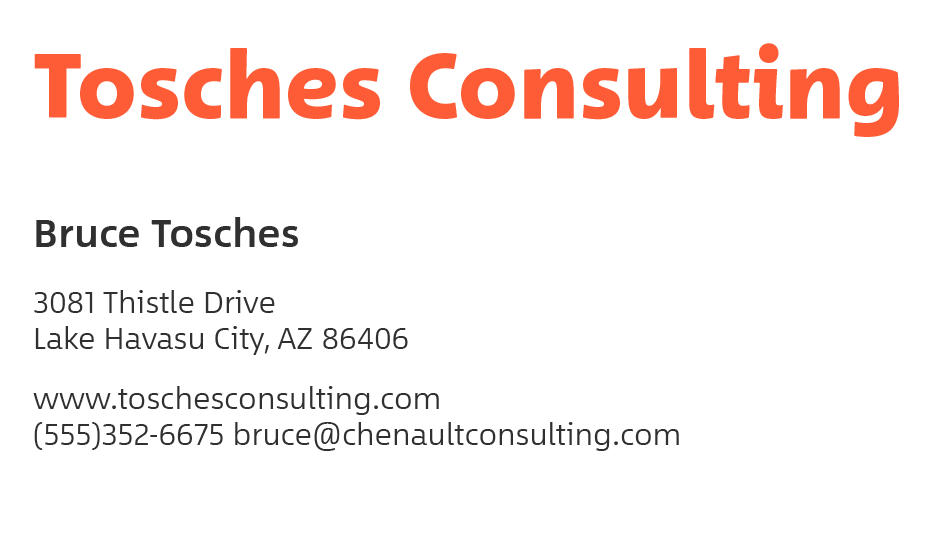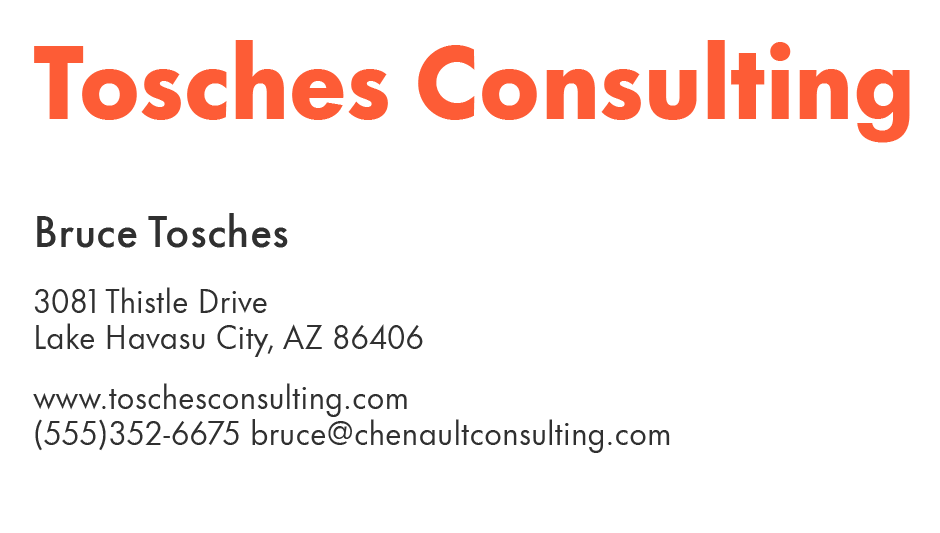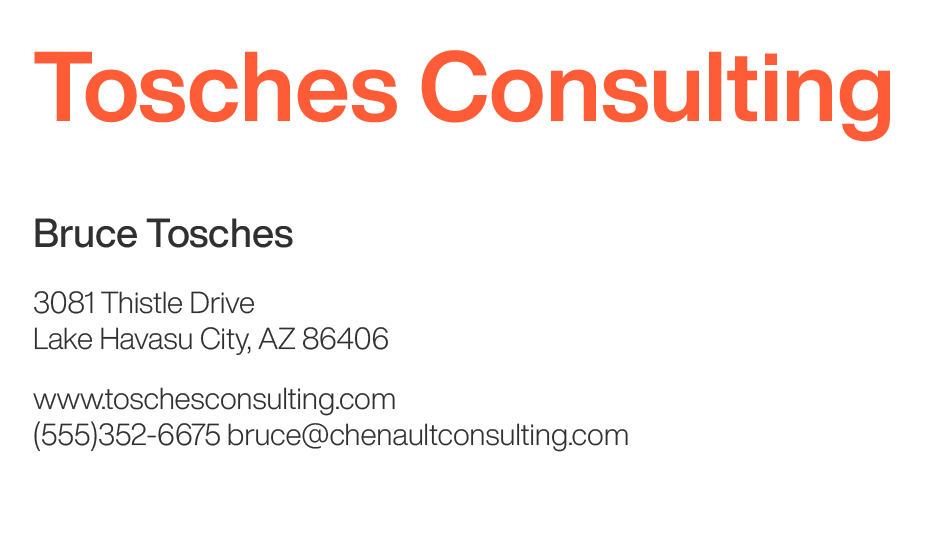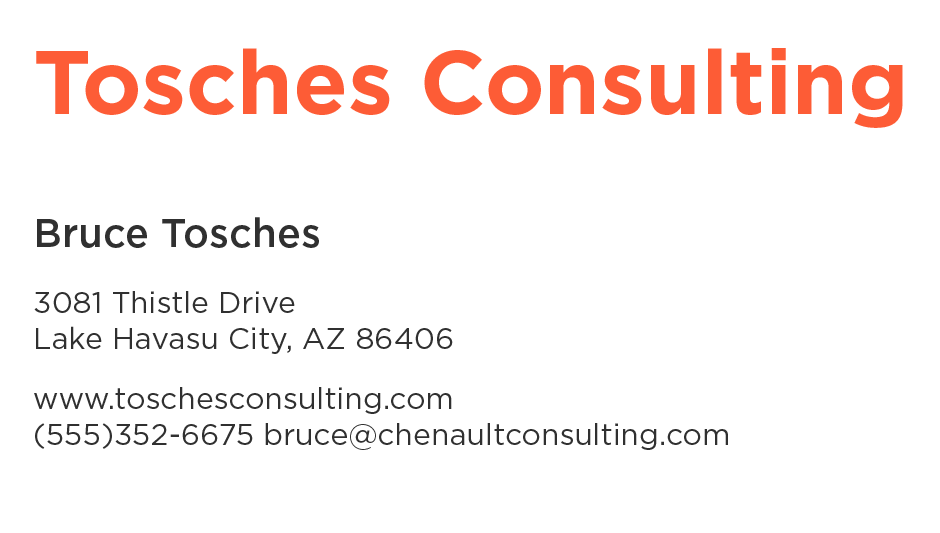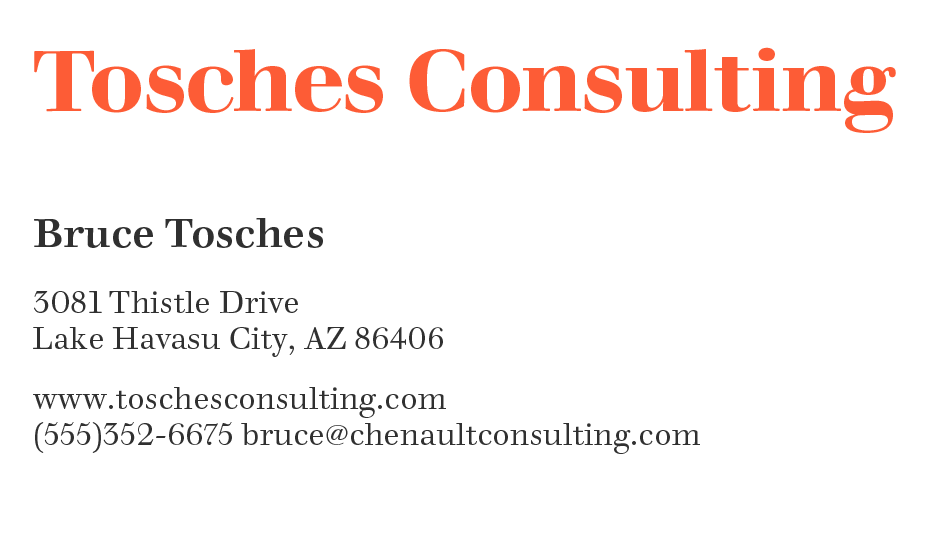
Best Fonts for Business Cards
Why are Fonts Important for Business Cards?
Learn why business cards are important and how the right fonts can enhance their power. Find the perfect font for your business card and create a powerful marketing tool. Business cards continue to be relevant in our digital age, effectively enhancing professional image and promoting your business. These inexpensive tools retain their importance within evolving technology, fostering stronger connections while augmenting your brand.
Four Things You Should Know About Business Cards
• They facilitate making connections and exchanging contact information with other professionals.
• Business cards help maintain a consistent brand image, creating a lasting impression on potential clients.
• They offer a quick and efficient way to access crucial contact information without relying on digital devices or memory recall.
• Handing out a physical card at networking events or meetings provides a personal touch in an increasingly digital world.
Three Tips for Choosing the Right Font on Your Business Card
• Clear, legible fonts ensure that your contact details are easily understood, reducing the risk of miscommunication.
• The right fonts convey a professional image, aligning with your brand’s values.
• Attractive typography enhances visual impact, making your business card stand out.
The Best Sizes for Fonts on Business Cards
The best business cards present information within a clear hierarchy.
• The most important thing is your brand name or logo.
• The next most important thing is your name. Set it in a bold or semi-bold font between 12 point and 14 point.
• Your contact information is next. It is normally set in a smaller size than your name, usually between 10 point and 12 point, and in a regular or medium weight.
• While font weight and size can create a clear hierarchy, a bit of color can also help.
Best Sans Serif Fonts for Business Cards
Helvetica® Now
Foundry: Monotype
Helvetica Now represents the latest iteration of the Helvetica design, A significant advancement from its predecessors, this classic font family has been reimagined for the 21st century. MyFonts is the exclusive providers of this powerful typographic tool.
Between™
Foundry: Linotype
Linotype designed Between for optimized legibility and clarity, creating a truly versatile and modern font solution suitable for a wide range of design applications – including business cards.
Futura® Now
Foundry: Linotype
Futura Now is comprehensive re-digitization of the famous early 20th century geometric sans serif typeface. Featuring 102 unique styles, including Condensed, Headline, and Text weights, Futura Now can be the ideal typeface for today’s business cards.
Gotham®
Foundry: Hoefler & Co.
Gotham’s contemporary and sophisticated lines, coupled with its wide range of weights, make it a perfect choice for business cards and branding.
Neue Frutiger®
Foundry: Linotype
Revamped and enhanced, Neue Frutiger offers significant improvements over previous iterations. It harmoniously blends a sans serif’s clean structure with calligraphic nuances, resulting in a highly legible and engaging typeface.
Best Serif Fonts for Business Cards
ITC Berkeley Old Style®
Foundry: International Typeface Corporation
ITC Berkeley Old style has calligraphic overtones, seamless weight transitions, and timeless proportions. It’s a classic and elegant font solution for business cards.
FF Kevitt® Slab
Foundry: FontFont
FF Kevitt Slab is an exceptionally legible font, featuring distinct letterforms, well-balanced proportions, generous spacing, and optimal stroke contrast. These characteristics guarantee exceptional business card typography.
Neue Swift®
Foundry: Linotype
Initially created as a typeface to ensure legibility in publication design, Neue Swift is a refined and enhanced iteration of its predecessor. Its reader-friendly characters make it an ideal choice for business cards.
Sabon® Next
Foundry: Linotype
Sabon Next is reader friendly, while maintaining all the grace and elegance of some of the earliest printing typefaces. It makes a statement, without calling attention to itself – perfect for business cards.
Walbaum
Foundry: Monotype
Walbaum provides a unique warmth absent in many Didone typefaces. Its sophisticated yet unpretentious nature sets it apart, ensuring a distinct and welcoming presence for business cards.
Best Variable Font for Business Cards
Variable fonts provide design flexibility and increased control over font weight and proportions.
Macklin® Variable
Foundry: Monotype
The Macklin font family is a versatile and robust design, offering open counters and wide, and clear apertures. It’s simple shapes and adaptability make it an excellent choice for the short blocks of copy on business cards.